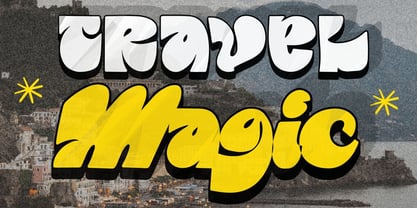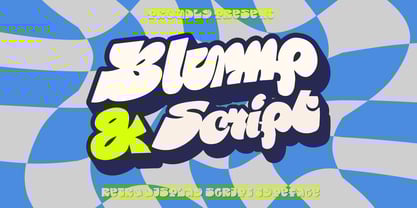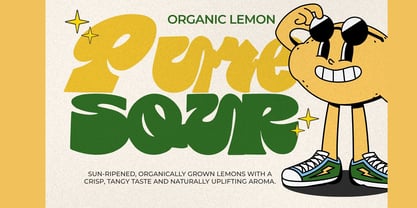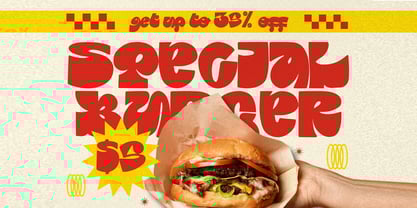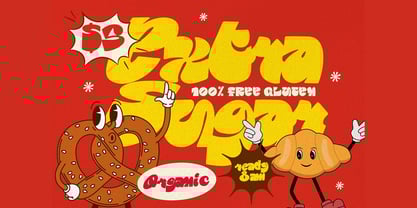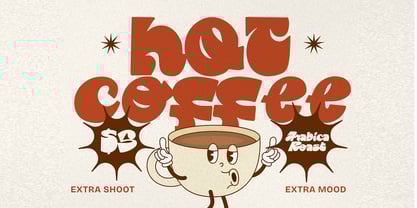
Blump
by Maghrib Type
The Blump Font Family was designed by Rizky Setyaludin and published by Maghrib Type. Blump contains 2 styles and family package options.
Blump is a bold, playful display typeface inspired by retro signage, vintage packaging, and cheerful hand-drawn lettering. With its chunky curves, soft corners, and bouncy letterforms, Blump delivers a strong visual personality that feels fun, friendly, and full of energy. Designed to stand out at large sizes, Blump shines in headlines, logos, posters, food & beverage branding, café menus, product packaging, social media graphics, and promotional designs. Its thick strokes and rounded shapes create a warm, nostalgic vibe, while the slightly irregular forms keep it lively and modern. Blump is perfect for projects that need a happy, bold, and expressive tone—whether you’re working on retro-themed designs, playful branding, or eye-catching marketing visuals. This typeface brings instant charm and confidence to your typography, making every word feel loud, tasty, and unforgettable. Best used for: Branding, logos, posters, packaging, café & restaurant design, street food visuals, social media headlines, merchandise, and retro-inspired graphics. Blump — big letters, big flavor, big impact.